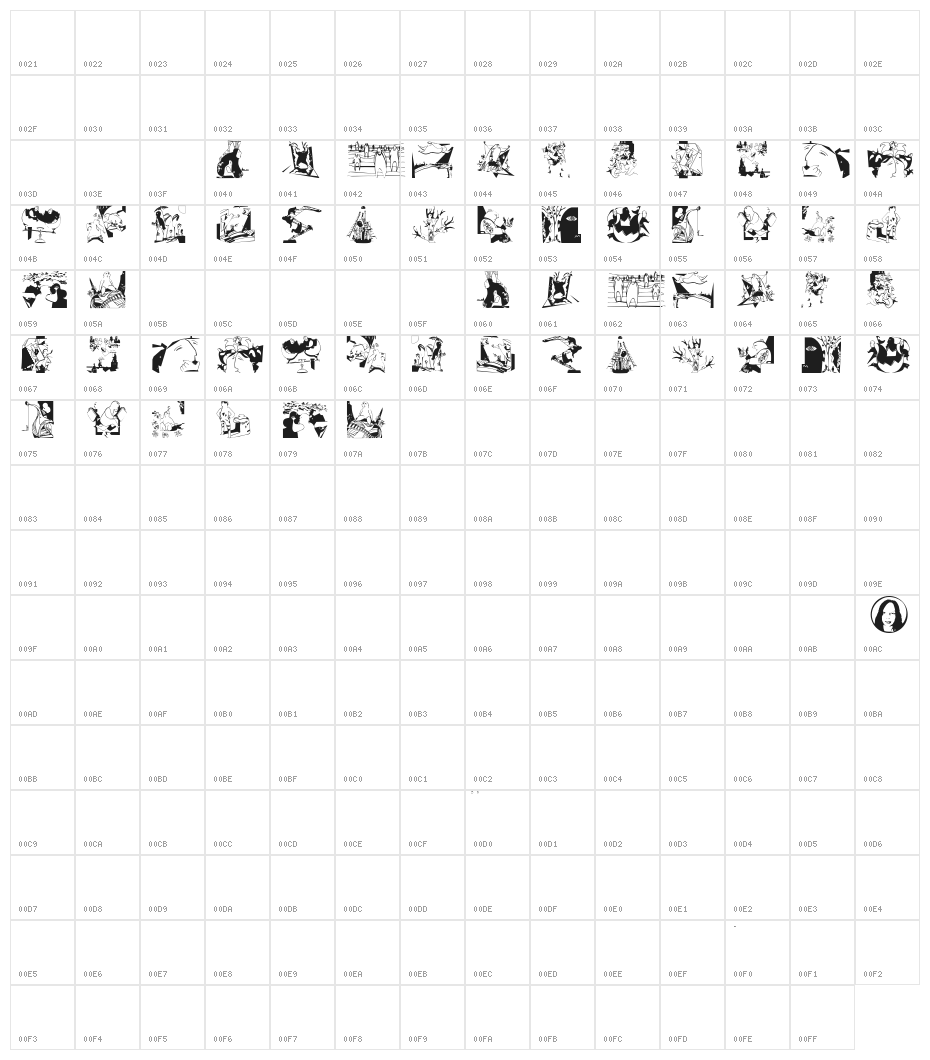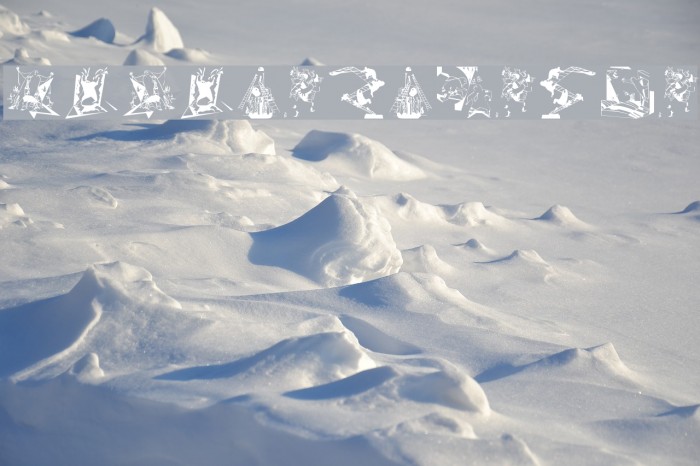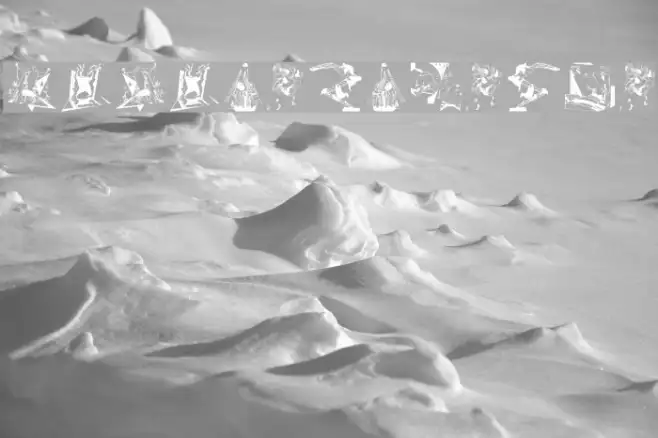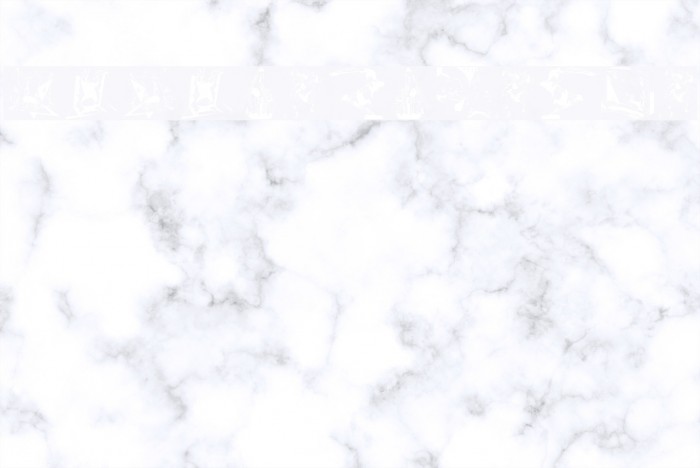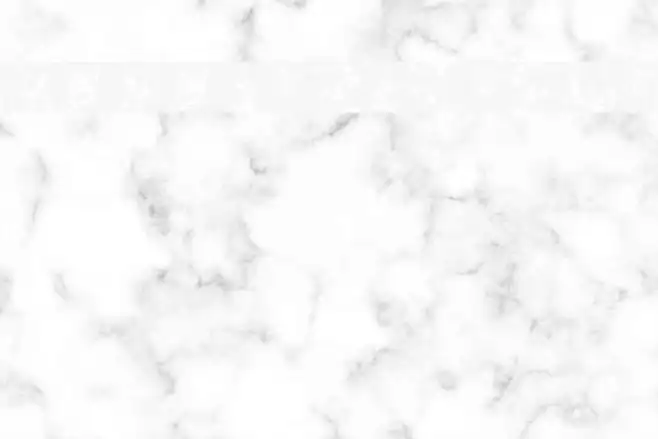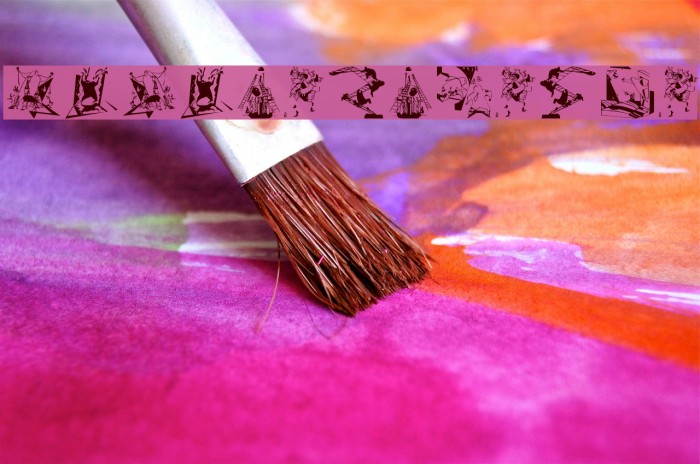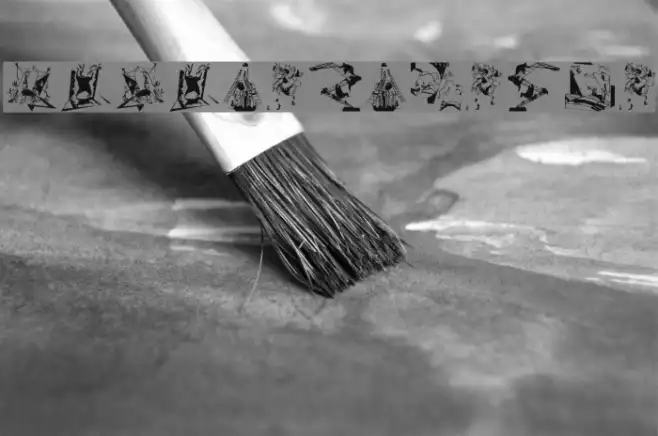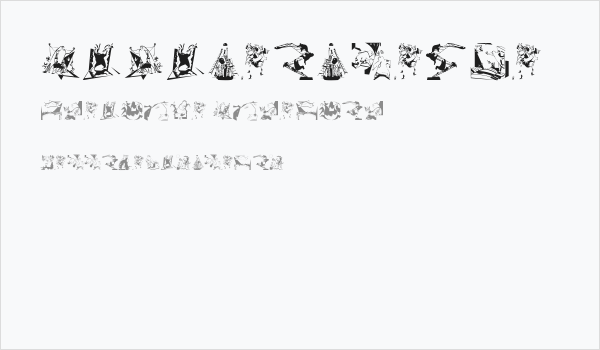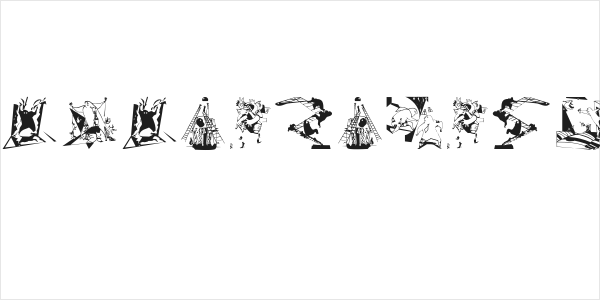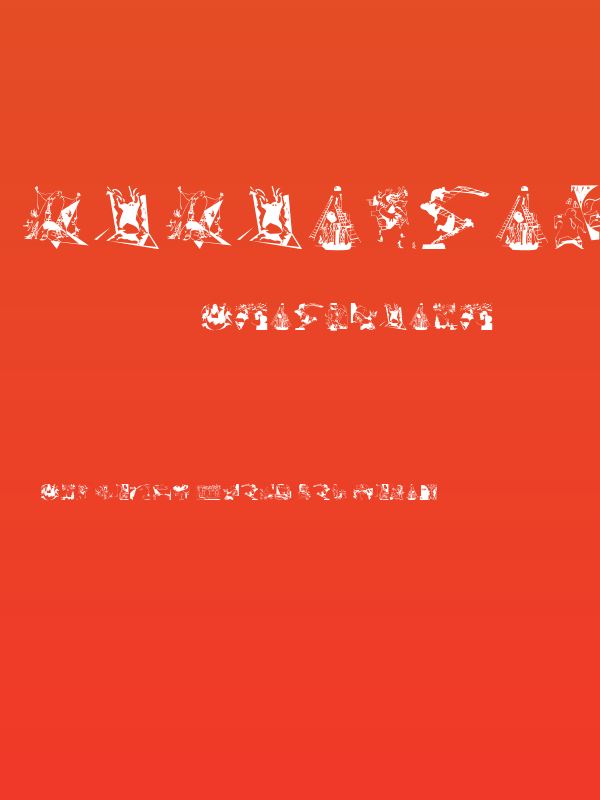
DadaPeopleOne Font
DadaPeopleOne Description
This font is a highly decorative and artistic typeface, featuring intricate illustrations within each character. Each letter and number is uniquely designed with detailed scenes or figures, creating a whimsical and imaginative visual experience. The characters are filled with a variety of themes, from abstract art to playful depictions of people and objects. This font is not suitable for body text due to its complexity but serves as a captivating display typeface. The style is reminiscent of Dadaist art, with a focus on creativity and breaking traditional design norms.
| Proposed Projects | Ideal for art projects, creative posters, unique invitations, and any design work that requires a standout, artistic touch. |